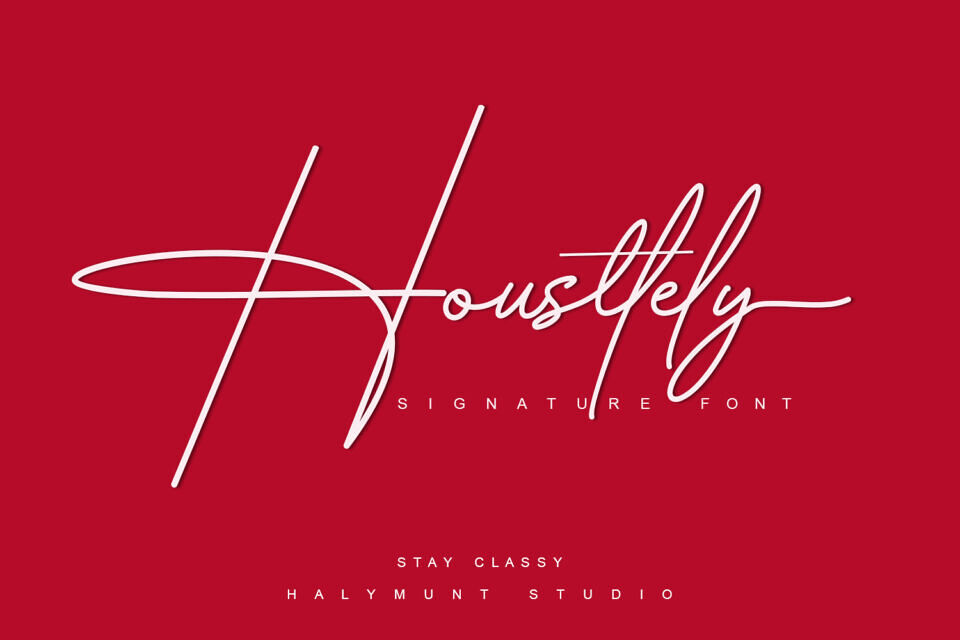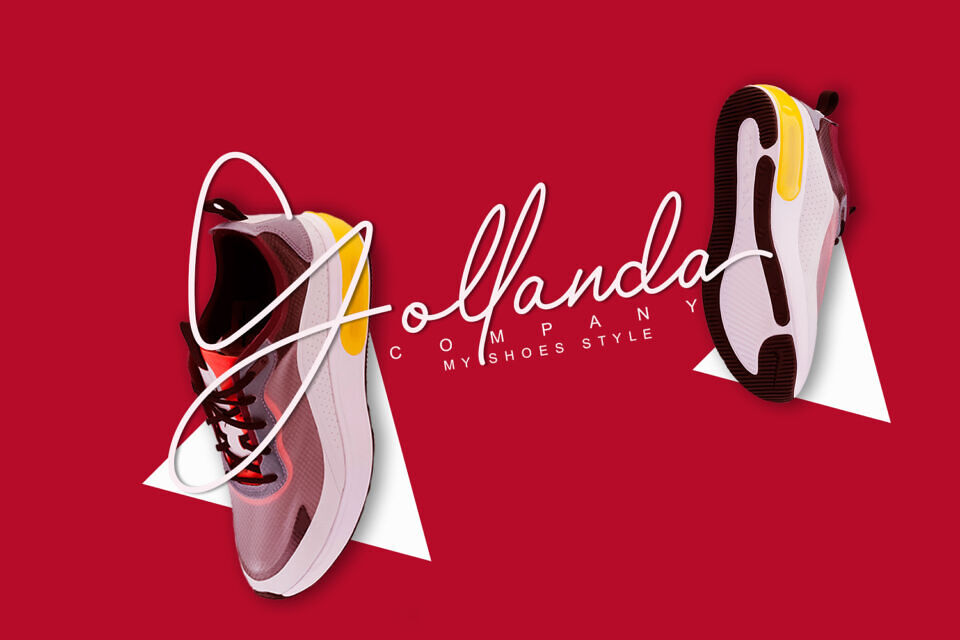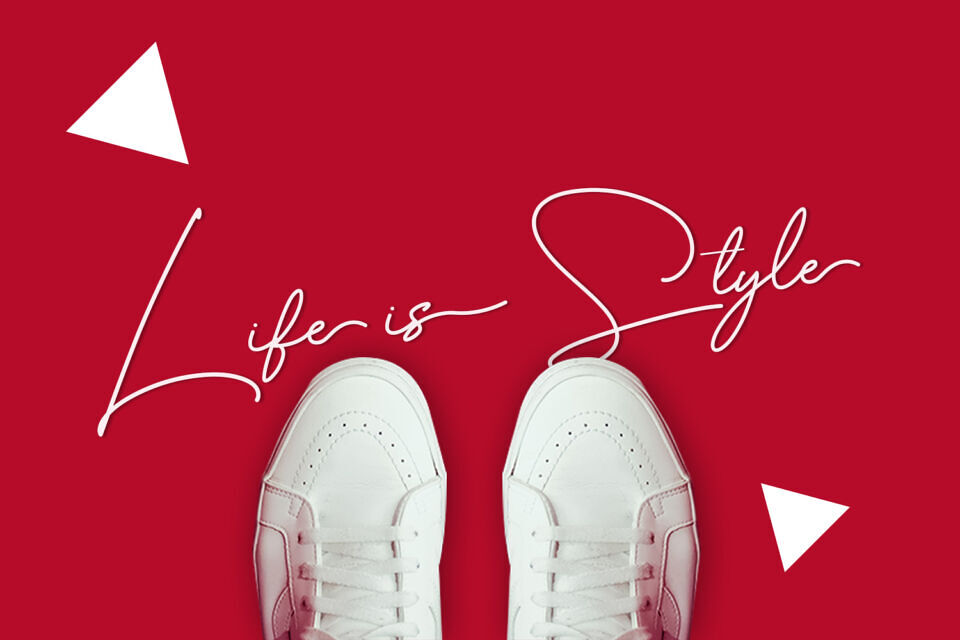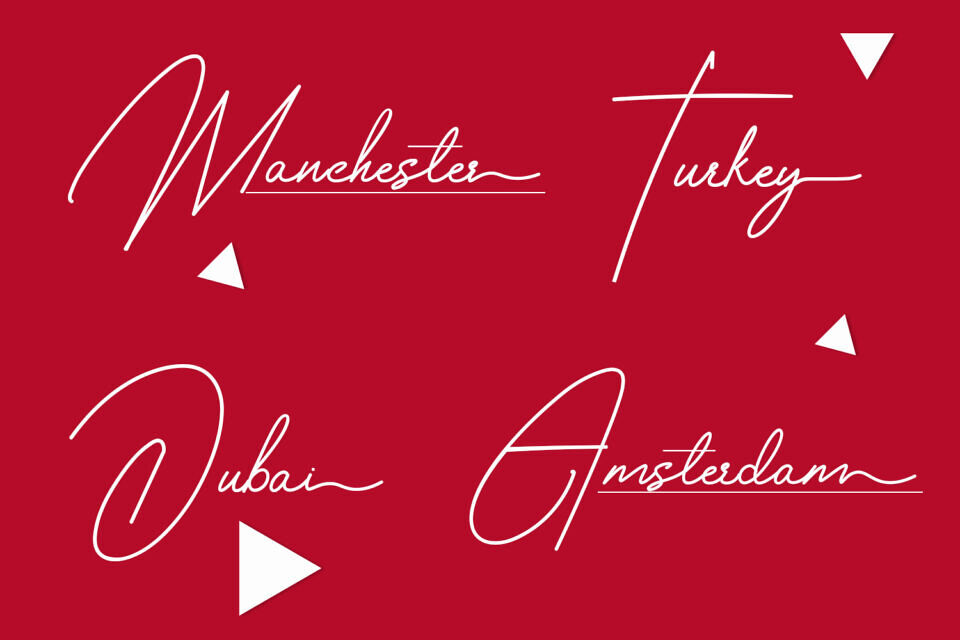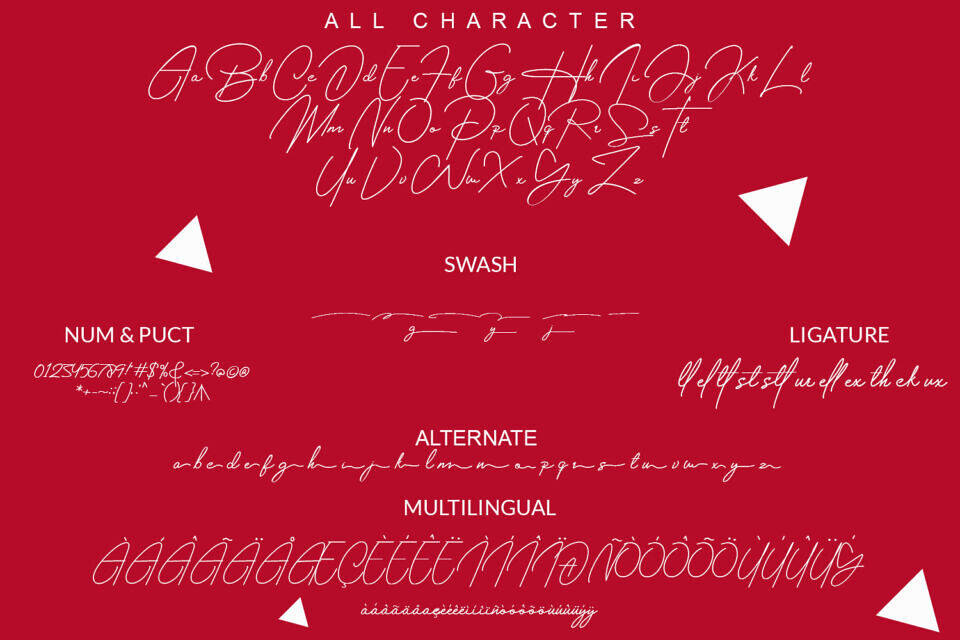
Housttely Signature is a beautiful monoline signature font. It has a natural writing style and modern will add a classy touch to your designs.
Housttely is perfect for branding projects, logo, wedding designs, social media posts, advertisements, product packaging, product designs, label, photography, watermark, invitation, stationery, and any projects that need handwriting taste.